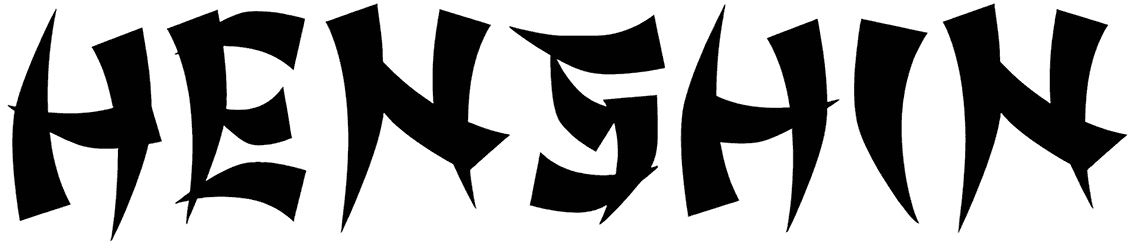
Henshin Font
Need a ninja to look at your texts? We have just the font for you! This samurai font has a bold design on its characters and radiates a youthful and ninja look. Henshin font will give a punk vibe to the reader through its pointy and extra-bold characters.
You can use it for any event banners and flyers, comic books, informal texts, movie titles, and graffiti. The alphabetical character set only consists of capital letters.